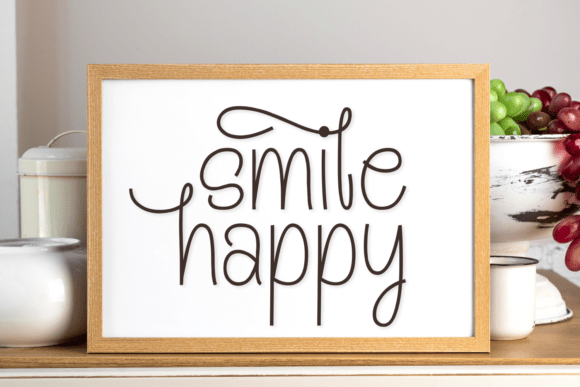
Unleash Your Creativity with Grand School Font: A Perfect Blend of Playful, Trendy, and Minimalist Styles
Are you looking for a font that can add a touch of magic to your designs? Look no further than the Grand School Font, an enchanting blend of playful, trendy, and minimalist styles. This versatile font is perfect for crafting daily notes, creating compelling designs for the back-to-school season, and so much more. In this article, we’ll explore the features and benefits of the Grand School Font and how it can help you unleash your creativity.
Handwriting and Handwritten Styles
The Grand School Font features beautiful handwriting and handwritten styles that encapsulate a modern, yet charming appeal. Its elegant and fluid lines make it perfect for creating eye-catching designs that are sure to capture attention. Whether you’re designing daily planners, mugs, tumblers, or Canva illustrations, this font is sure to impress.
Adaptability on Various Platforms
Endless Design Possibilities
The Grand School Font is incredibly versatile and can be used for a wide range of design projects. Here are some ideas to get you started:
- Daily planners: Create beautiful and functional daily planners with the Grand School Font.
- Mugs and tumblers: Design stunning mugs and tumblers with the Grand School Font that’s sure to impress.
- Greeting cards: Stir emotions with the warmth of the Grand School Font when used for greeting cards.
- Tote bags and stickers: Create adorable designs for tote bags and stickers with the Grand School Font.
- Social media graphics: Use the Grand School Font to create stunning social media graphics that capture attention.
- Blog visuals: Add a touch of elegance to your blog visuals with the Grand School Font.
A Range of Lovely Font Styles
The Grand School Font collection features a range of lovely font styles that are sure to inspire your creativity. From handmade and handcraft fonts to sans serif and monoline fonts, there’s something for everyone. Here are some of the font styles you can expect:
- Handmade fonts: Add a touch of warmth and personality to your designs with handmade fonts.
- Handcraft fonts: Create stunning designs with handcraft fonts that feature elegant and fluid lines.
- Sans serif fonts: Use sans serif fonts to create clean and modern designs that are perfect for blog visuals and social media graphics.
- Monoline fonts: Create stunning designs with monoline fonts that feature fluid and consistent lines.
A Child-Friendly and Pet Font
The Grand School Font is not just a font, it’s a tool to inspire creativity in children and adults alike. The font features adorable animal designs that are sure to delight young and old. Whether you’re creating designs for kids or pets, the Grand School Font is the perfect choice.
Become a Master of Crafty Charm
With the Grand School Font collection, you can become a master of crafty charm. The font is perfect for creating eye-catching notebook designs, quotable phrases, and seasonal quotes. Whether you’re a crafter, designer, or DIY enthusiast, the Grand School Font is sure to inspire your creativity.
- Notebook designs: Create stunning notebook designs with the Grand School Font that’s sure to impress.
- Quotable phrases: Use the Grand School Font to create inspiring quotable phrases that capture attention.
- Seasonal quotes: Create stunning seasonal quotes with the Grand School Font that’s perfect for holidays and special occasions.
In conclusion, the Grand School Font is an enchanting blend of playful, trendy, and minimalist styles that’s perfect for unleashing your creativity. With its handwriting and handwritten styles, adaptability on various platforms, and endless design possibilities, this font is sure to inspire your next design project. Whether you’re a crafter, designer, or DIY enthusiast, the Grand School Font collection is a must-have tool for creating stunning designs that capture attention.